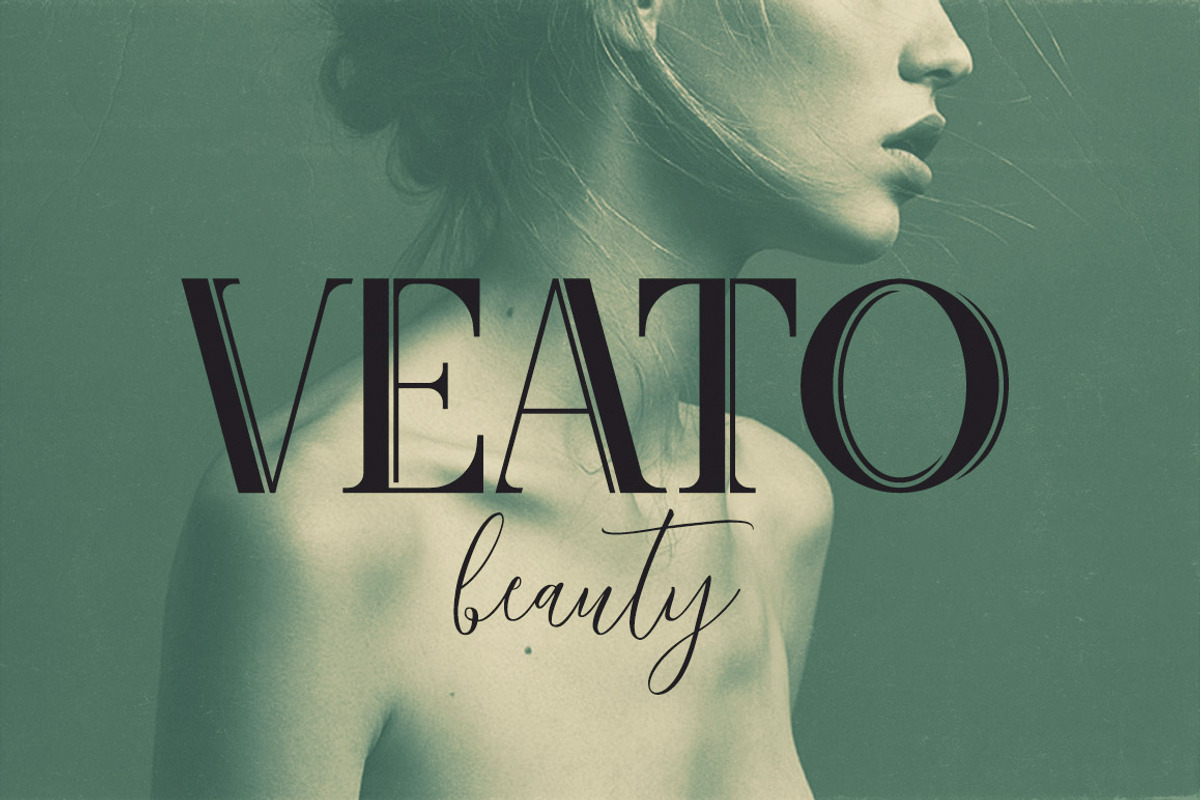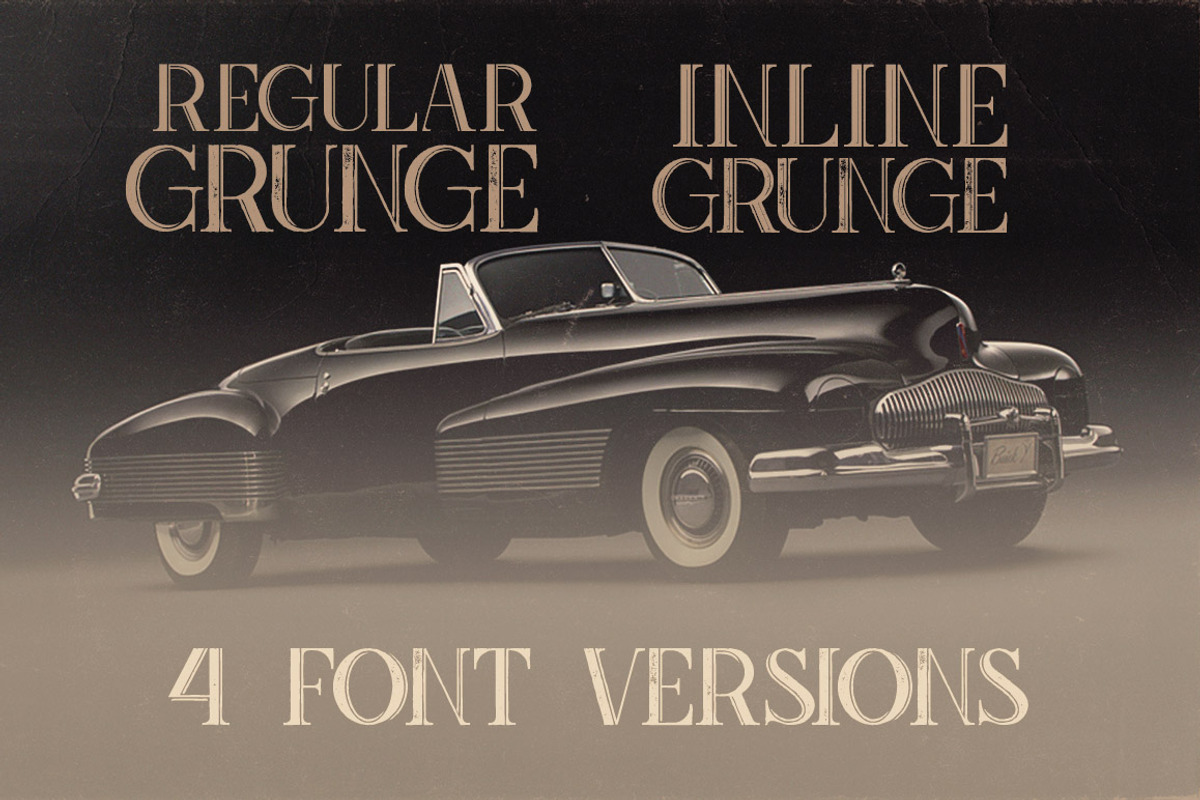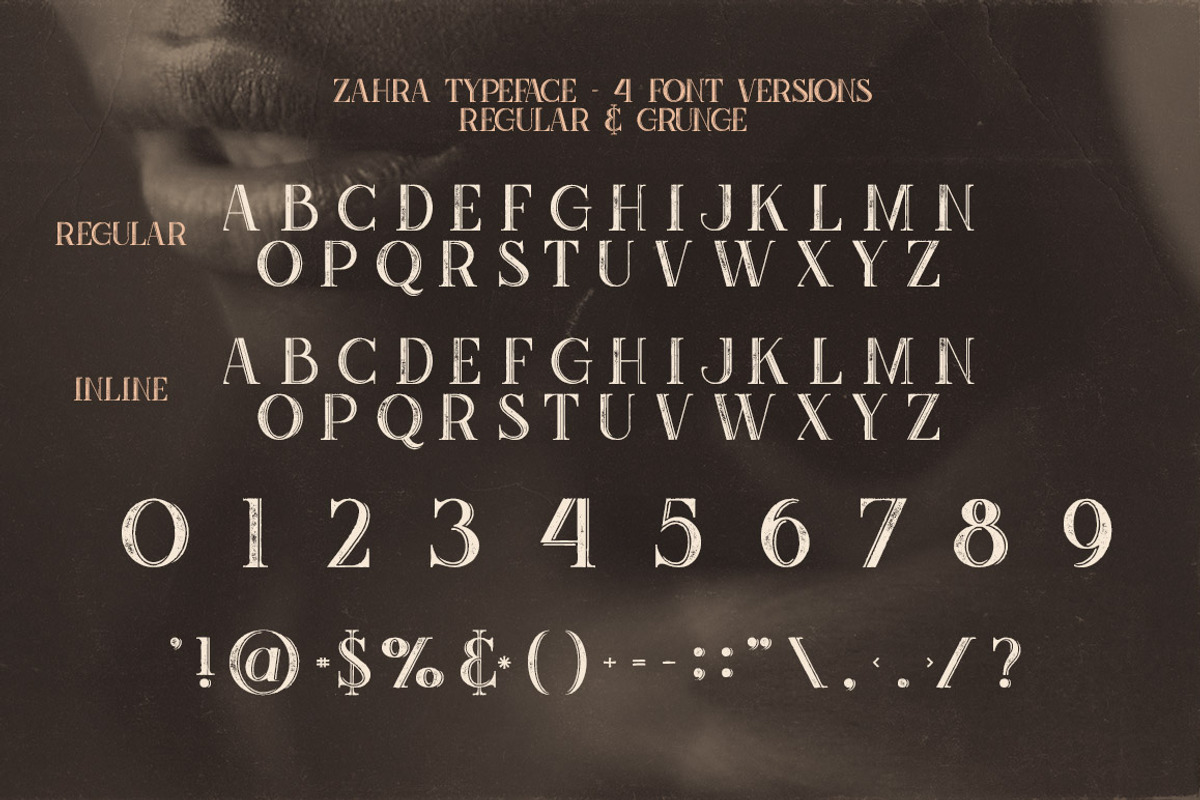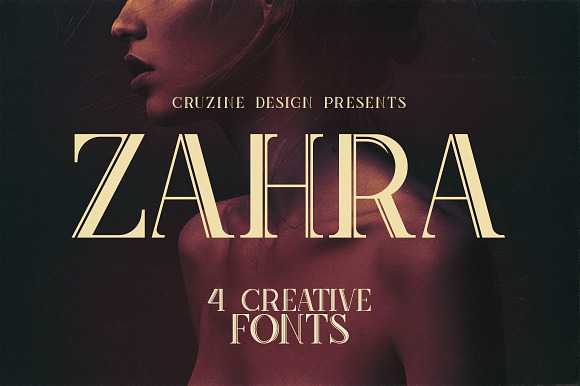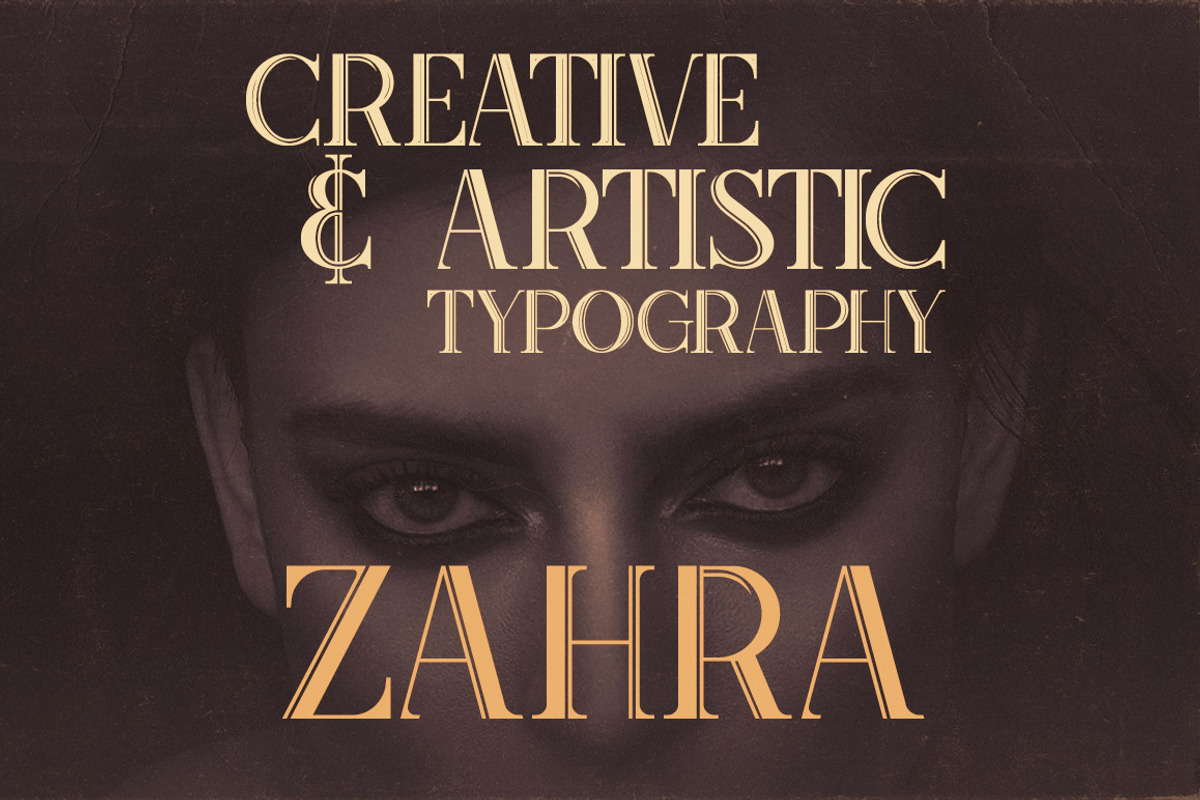
Zahra Typeface
Modern, artistic & grunge style display font for your new projects. Great for modern/fashion/vintage projects!
Why Zahra Typeface is worth a look
Zahra Typeface by Cruzine fits naturally into Branding, posters, packaging, typography.